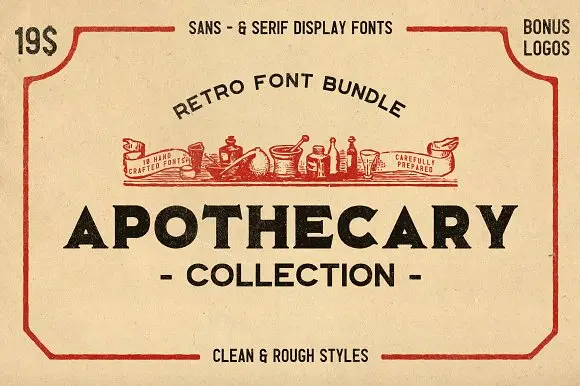
Apothecary Font Collection
The Apothecary Font Collection is a beautifully crafted set of typefaces that embodies elegance and sophistication. Ideal for a variety of design projects, this collection includes multiple styles and weights, ensuring versatility for both digital and print applications.
• Multiple font styles including serif and sans-serif options
• Variety of weights ranging from light to bold
• Includes special characters and ligatures for enhanced typography
• Designed for readability and aesthetic appeal
• Character support for multiple languages
• Perfect for branding, logos, packaging, and editorial design
• Combine different weights for a dynamic visual hierarchy
• Utilize special characters to add unique touches to your designs